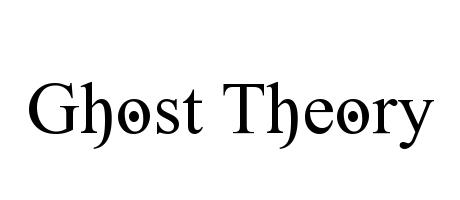
Ghost Theory
Ghost Theory is a serif typeface, exhibiting a classic and somewhat formal feel. Its serifs are subtle, giving it a clean and modern look, avoiding the overly ornate appearance of some traditional serif fonts. The letters are evenly spaced, creating a sense of balance and readability. The overall impression is one of understated elegance.